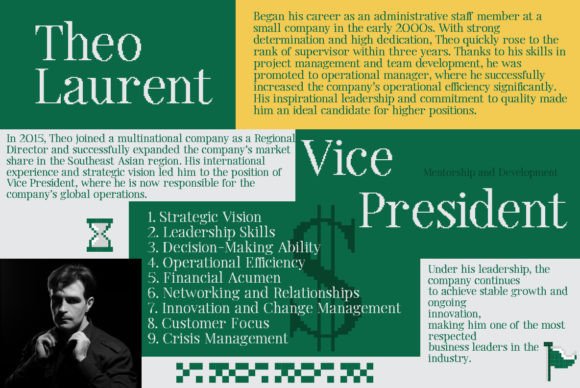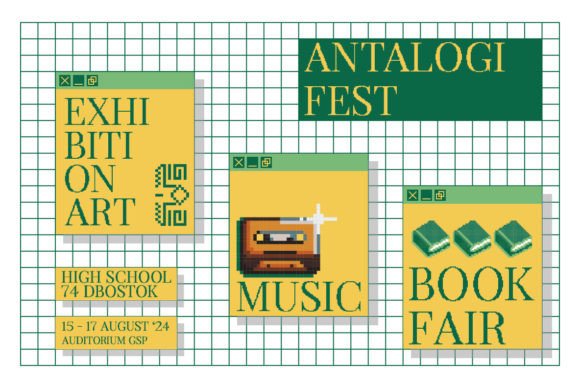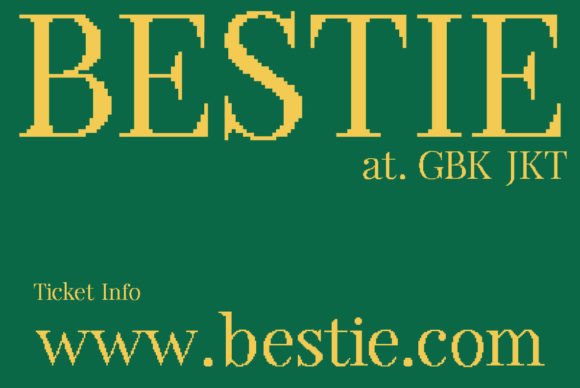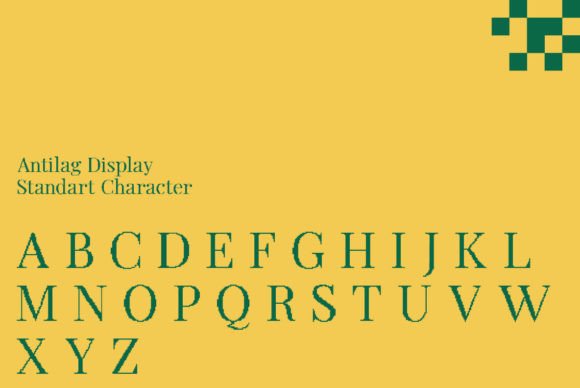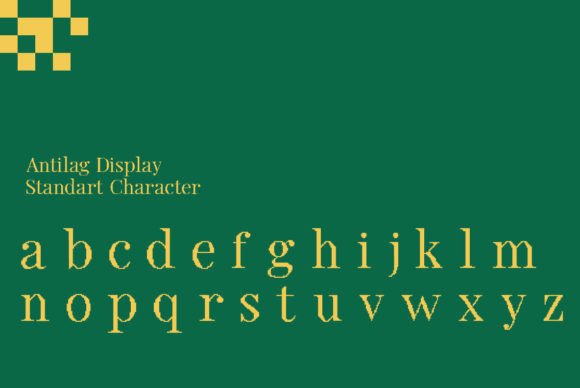
Introducing Antilag Font: A Perfect Blend of Vintage and Modern Design
In the world of typography, fonts play a crucial role in defining the visual identity of a brand or design. With the resurgence of pixel art in 2024, designers are on the lookout for unique and captivating fonts that can elevate their creations. This is where Antilag Font comes into play, a distinctive pixel font that masterfully blends vintage and retro aesthetics with a modern twist.
The Inspiration Behind Antilag Font
Antilag Font draws inspiration from the beloved Playfair Display font, reimagining its classic character forms in a pixelated style. The creators of Antilag aimed to capture the nostalgic charm of early digital design while incorporating the elegance of serif typography. The result is a font that exudes a sense of nostalgia while remaining fresh and modern.
Key Features of Antilag Font
- Unique Pixel Design: Antilag Font boasts a distinctive pixelated style that sets it apart from other fonts. Its pixel art design makes it perfect for projects that require a retro or vintage feel.
- Serif Typography: The font incorporates the elegance of serif typography, making it suitable for designs that require a touch of sophistication.
- Vintage and Modern Blend: Antilag Font seamlessly blends vintage and retro aesthetics with a modern twist, making it a versatile font for various design projects.
- Inspired by Playfair Display: The font’s classic character forms are inspired by the popular Playfair Display font, ensuring a sense of familiarity and elegance.
Use Cases for Antilag Font
Antilag Font is a versatile font that can be used in various design projects, including:
- Branding and Logo Design: The font’s unique pixel design and serif typography make it perfect for creating distinctive logos and brand identities.
- Web Design: Antilag Font can add a touch of nostalgia and elegance to website designs, making it suitable for blogs, portfolios, and e-commerce sites.
- Graphic Design: The font can be used in various graphic design projects, such as posters, flyers, and brochures, to add a retro or vintage touch.
- Digital Art and Pixel Art: Antilag Font is a great fit for digital art and pixel art projects, allowing artists to create stunning pixelated designs.
Benefits of Using Antilag Font
Using Antilag Font in your design projects offers several benefits, including:
- Unique Visual Identity: The font’s distinctive pixel design and serif typography ensure a unique visual identity for your brand or design.
- Versatility: Antilag Font can be used in various design projects, from branding and web design to graphic design and digital art.
- Nostalgic Charm: The font’s vintage and retro aesthetics evoke a sense of nostalgia, making it perfect for projects that require a classic or retro feel.
- Elegance and Sophistication: The incorporation of serif typography adds an touch of elegance and sophistication to the font.
Antilag Font is a unique and captivating pixel font that blends vintage and retro aesthetics with a modern twist. Inspired by the beloved Playfair Display font, Antilag offers a distinctive visual identity that can elevate your design projects. With its versatility, nostalgic charm, and elegance, Antilag Font is a great choice for designers and crafters looking to add a touch of sophistication and retro flair to their creations.